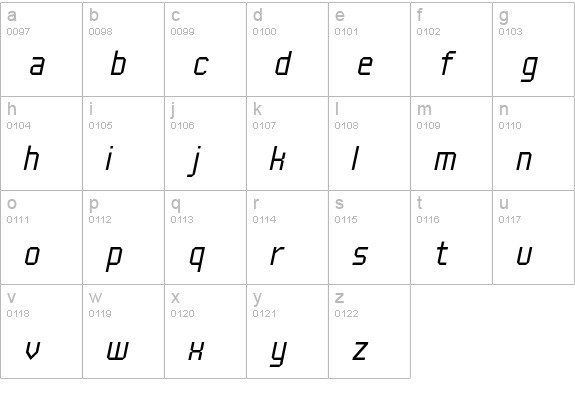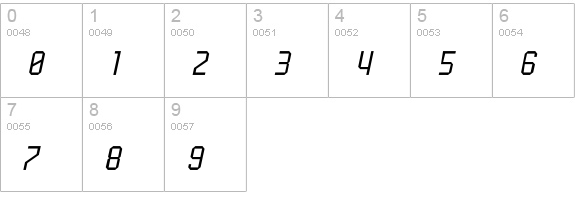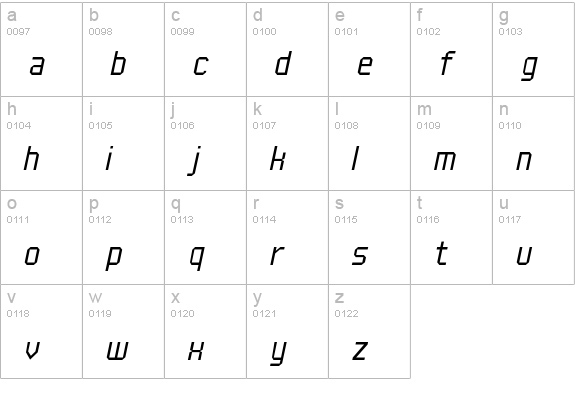
Introducing UNDA-AngleFineItalic, a captivating and elegant font that effortlessly combines sophistication with a touch of playfulness. This unique typeface is the perfect choice for those seeking a font that exudes both professionalism and creativity. With its delicate and refined italic design, UNDA-AngleFineItalic adds a distinctive flair to any project, whether it be for branding, advertising, invitations, or any other creative endeavor. Its smooth curves and balanced letterforms create a harmonious visual experience that is pleasing to the eye and captures attention effortlessly. One of the most remarkable aspects of UNDA-AngleFineItalic is that it is completely free. Yes, you read that correctly! This exceptional font is freely available to download at FontsMarket.com. This means that you can enjoy the beauty and versatility of UNDA-AngleFineItalic without any cost or limitations. UNDA-AngleFineItalic is a true testament to the power of typography in enhancing the overall aesthetic of your design. Its versatility allows it to adapt to various design styles and contexts, making it a valuable asset for both professionals and enthusiasts alike. Whether you are a graphic designer, a creative entrepreneur, or simply someone who appreciates beautiful typography, UNDA-AngleFineItalic is a must-have addition to your font collection. Don't miss out on the opportunity to elevate your projects to new heights with the UNDA-AngleFineItalic font. Download it for free today at FontsMarket.com and let your creativity soar. Unleash the power of UNDA-AngleFineItalic and witness the transformation it brings to your designs.